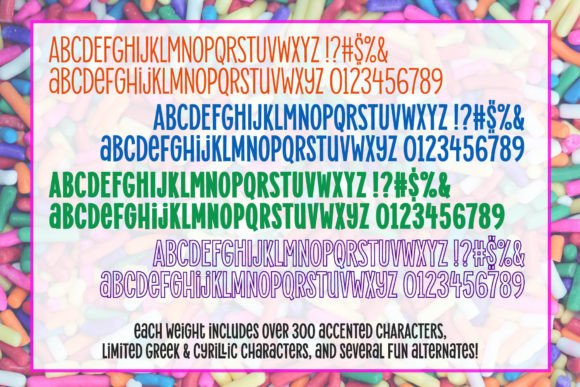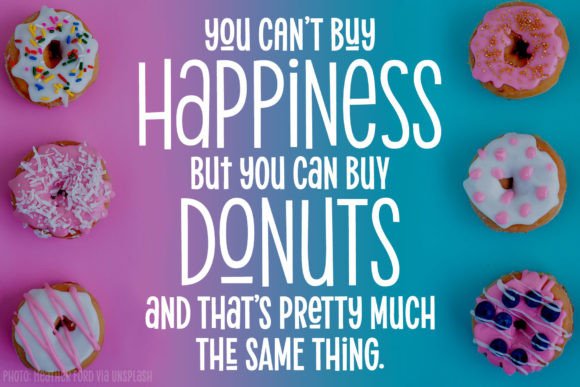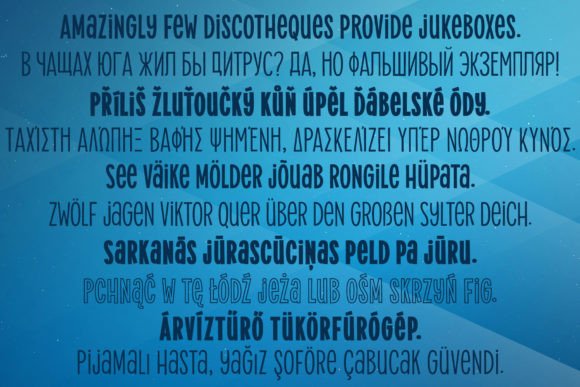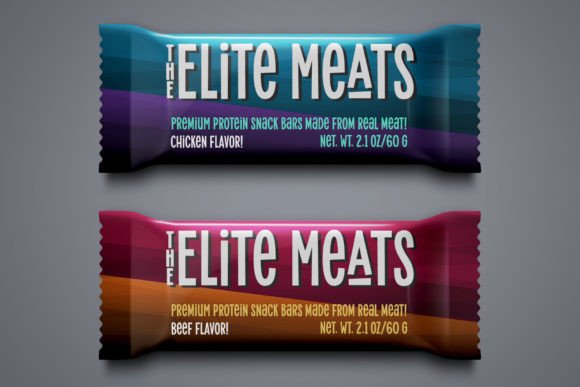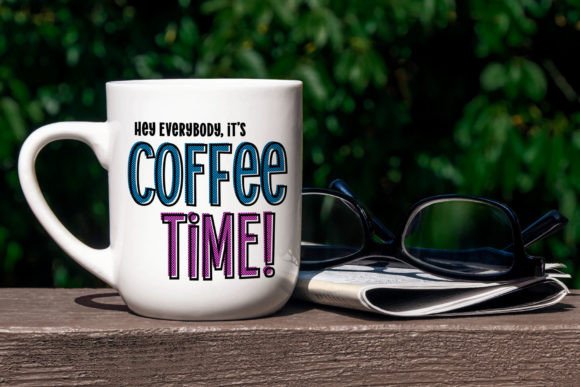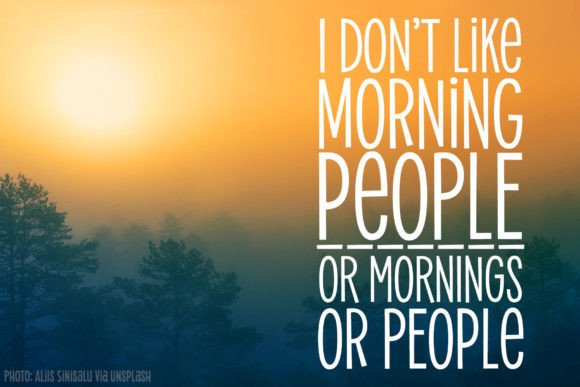
Introducing Alimentary Font: A Deliciously Versatile Typeface
For designers and crafters, finding the perfect font can be a daunting task. But what if you could sink your teeth into a typeface that’s not only visually appealing but also rich in character? Look no further than Alimentary Font, a family of four fonts that will satisfy your creative cravings.
What is Alimentary Font?
Alimentary, an adjective that relates to nourishment or sustenance, is a fitting name for this font family that’s sure to feed your design needs. As a self-proclaimed font enthusiast with a love for food-based names, the creator of Alimentary Font has outdone themselves with this latest offering. By combining food and science, this font family is a perfect blend of nerdy and delightful.
The Inspiration Behind Alimentary Font
The journey to Alimentary Font began with the creator’s desire to craft a font that was taller and narrower than their previous font, MacGuffin. With a hip and retro feel in mind, Alimentary Medium was born. However, the creator’s vision didn’t stop there. They soon expanded the family to include Light, Heavy, and outline versions, each with its own unique character.
Meet the Alimentary Font Family
The Alimentary Font family consists of four members, each with an impressive 700+ glyphs. This extensive character set includes:
- The basics: A-Z, a-z, 0-9, and an abundance of punctuation
- 330 characters for European language support
- A limited selection of Greek, Coptic, and Cyrillic characters
- A double handful of alternates and ligatures to add variety to your designs
Key Features of Alimentary Font
So, what sets Alimentary Font apart from other typefaces? Here are a few key features that make it a standout:
- Versatility: With four font styles to choose from (Medium, Light, Heavy, and outline), you can use Alimentary Font for a wide range of design projects, from elegant headings to bold statements.
- Language support: The extensive European language support makes Alimentary Font an excellent choice for designers working on international projects.
- Alternates and ligatures: Add a touch of personality to your designs with the included alternates and ligatures.
Whether you’re a seasoned designer or a crafty DIY enthusiast, Alimentary Font is an excellent addition to your toolkit. The font’s versatility and wide range of applications make it suitable for:
- Headings and titles
- Signage and display text
- Packaging and labels
- Digital and print materials
In conclusion, Alimentary Font is a mouth-watering addition to any designer’s or crafter’s collection. With its unique blend of style, versatility, and character, this font family is sure to satisfy your creative cravings. So, go ahead and indulge in the Alimentary Font family – your designs will thank you!